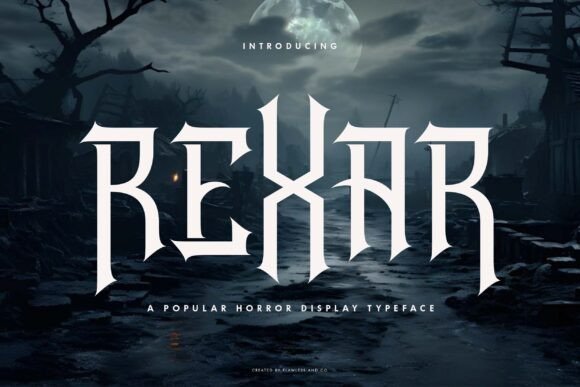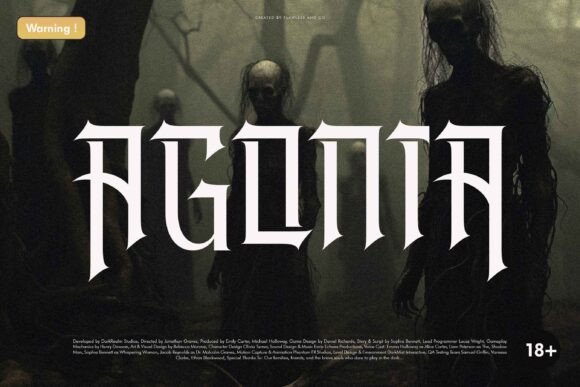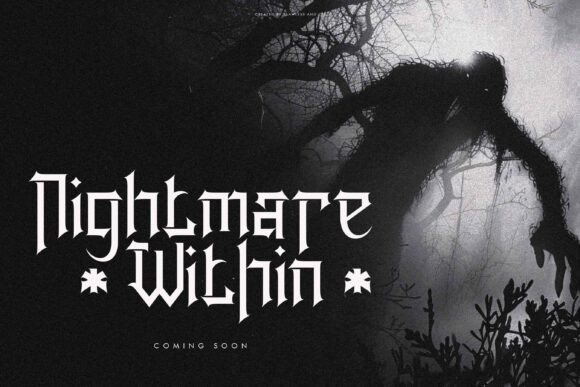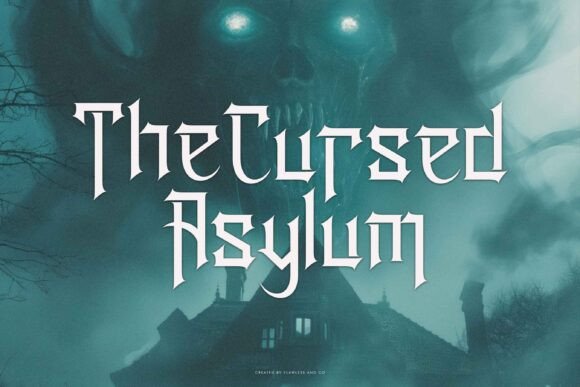
Rexar Font: A Dark Gothic Display Font for Horror Designs
About the Rexar Font
Add a touch of class to your work with the Rexar Font, a truly exceptional typeface. Rexar is a gothic display typeface designed to evoke fear and mystery with its sharp letterforms, pointed angles, and intricate gothic details. Perfect for horror movie posters, book covers, metal band logos, and dark fantasy projects, this font delivers a strong and menacing visual presence while enhancing dramatic and mysterious designs.
Rexar’s aggressive geometry makes it ideal for headlines, logos, and short impactful text across various media, including posters and packaging. However, its highly detailed nature renders it unsuitable for body text or UI elements where readability is paramount. Avoid using it for long paragraphs or small sizes.
Its strong, menacing personality pairs well with clean sans-serif fonts like Futura or Helvetica for contrast, creating a balanced visual tension. For a more gothic-inspired pairing, consider a softer, more rounded blackletter font to offset Rexar’s sharpness. Avoid pairing it with other highly ornate fonts; this would result in visual clutter.
Rexar projects a bold, rebellious, and undeniably dark aesthetic. Brands focused on horror, heavy metal, fantasy, or other genres emphasizing mystery and power will find it particularly effective in establishing a strong visual identity.
Rexar Font Usage Examples
Rexar Font Example